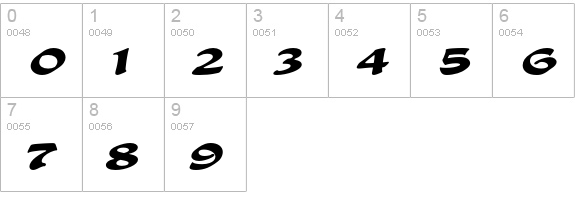
Becka Script Std Font Details
Becka Script Std is a beautiful and elegant font that exudes sophistication and charm. With its flowing handwritten style and delicate flourishes, this font is perfect for adding a touch of class to any project. Whether you're designing invitations, logos, or branding materials, Becka Script Std is sure to make a statement. The best part is that Becka Script Std is completely free to download! You can easily access this stunning font at FontsMarket.com and start using it in your designs right away. Don't miss out on the opportunity to elevate your projects with this versatile and timeless font. Download Becka Script Std today and let your creativity shine!